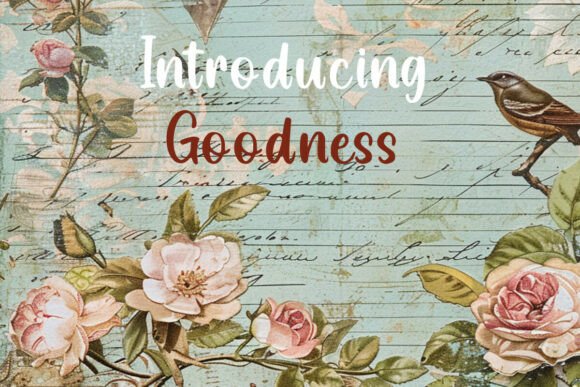
Unlock Creative Potential with Goodness Font: Elevate Your Designs to New Heights
In the vast universe of typography, a font can either make or break the visual appeal of a design. For creators, designers, and crafters looking to infuse their projects with a unique charm, the Goodness font emerges as a game-changer. This versatile typeface is engineered to breathe life into a myriad of creative endeavors, from t-shirt designs and brand identities to magazine layouts, SVG files, greeting cards, Cricut projects, posters, and beyond. The Goodness font is not merely a collection of letters; it’s a visual storyteller that amplifies the potential of your creative projects, making them stand out in any medium.
The Versatility of Goodness Font
One of the most compelling attributes of the Goodness font is its incredible versatility. This adaptability makes it an indispensable tool for creators who work across different platforms and mediums. Whether you’re designing for digital or print, the Goodness font adjusts seamlessly, ensuring your message is conveyed with clarity and style.
- T-Shirt Designs: Transform plain tees into captivating wearable art that draws attention and sparks conversations. The Goodness font’s unique character lends a fresh, trendy vibe that’s perfect for fashion-forward designs.
- Brand Identity: Establish a strong brand presence with a distinctive typography that sets you apart from the competition. The Goodness font can become a part of your brand’s visual DNA, making your products and communications instantly recognizable.
- Magazines and Publications: Engage your readers with a font that is both easy to read and visually appealing. The Goodness font can help elevate the aesthetic of your magazine, making it more inviting to readers.
- SVG Files: For crafters and makers, the Goodness font offers a new level of creativity when incorporated into SVG files for cutting machines. Create custom vinyl decals, iron-on designs, and more with a professional finish.
- Greeting Cards: Add a personal touch to your greeting cards with the Goodness font. Its charm and character make it perfect for crafting messages that resonate with recipients.
- Cricut Projects: If you’re a fan of Cricut, the Goodness font is a fantastic addition to your projects. From custom banners and signs to personalized gifts, this font brings a touch of elegance and whimsy.
- Posters: Make a bold statement with posters that utilize the Goodness font. Whether you’re advertising an event, promoting a cause, or simply expressing your creativity, this font ensures your message is seen and remembered.
- Social Media: In the crowded digital landscape, standing out on social media can be challenging. The Goodness font offers a way to create visually appealing posts that grab attention, drive engagement, and grow your online presence.
Why Choose Goodness Font?
Choosing the Goodness font for your creative projects comes with numerous benefits:
- Unique Aesthetic: The Goodness font boasts a unique design that can elevate the look of your projects, setting them apart from the generic and the ordinary.
- Readability: Despite its stylized appearance, the Goodness font maintains high readability, making it suitable for both headlines and body text.
- Flexibility: Its versatility across different mediums and applications makes it a valuable asset for any creator looking to expand their design repertoire.
- Amplified Creativity: With the Goodness font, your creative potential knows no bounds. It’s a tool that can help bring your ideas to life in ways you might not have thought possible.
Getting Started with Goodness Font
Incorporating the Goodness font into your workflow is straightforward:
- Experimentation: Start experimenting with the Goodness font in your projects. Play with sizes, colors, and combinations with other fonts to discover its full potential.
The Goodness font is more than just a typographic choice; it’s a creative companion designed to inspire and enhance your projects. Whether you’re a professional designer, a hobbyist crafter, or a social media influencer, this font offers a simple yet effective way to elevate your work. With its unique charm, versatility, and readability, the Goodness font is poised to become an essential part of your creative toolkit. Unlock the full potential of your designs and make your mark with the Goodness font.